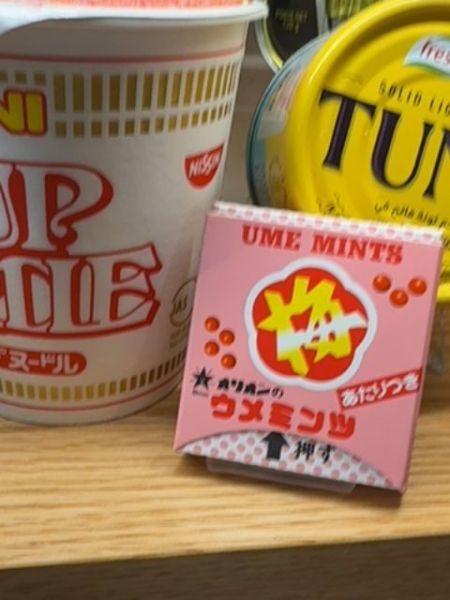
UME Mints
UME Mints are small, fruity-flavored mints that provide a burst of refreshing flavor.
The typography used on the packaging combines bold, sans-serif fonts for the main product name 'UME Mints,' which stands out prominently in red. Stylized Japanese characters complement the design, adding a cultural touch while maintaining readability.
The packaging is compact and square-shaped, with a playful pink color scheme. It features an illustration of a plum, along with red and white accents that give it a vibrant look.